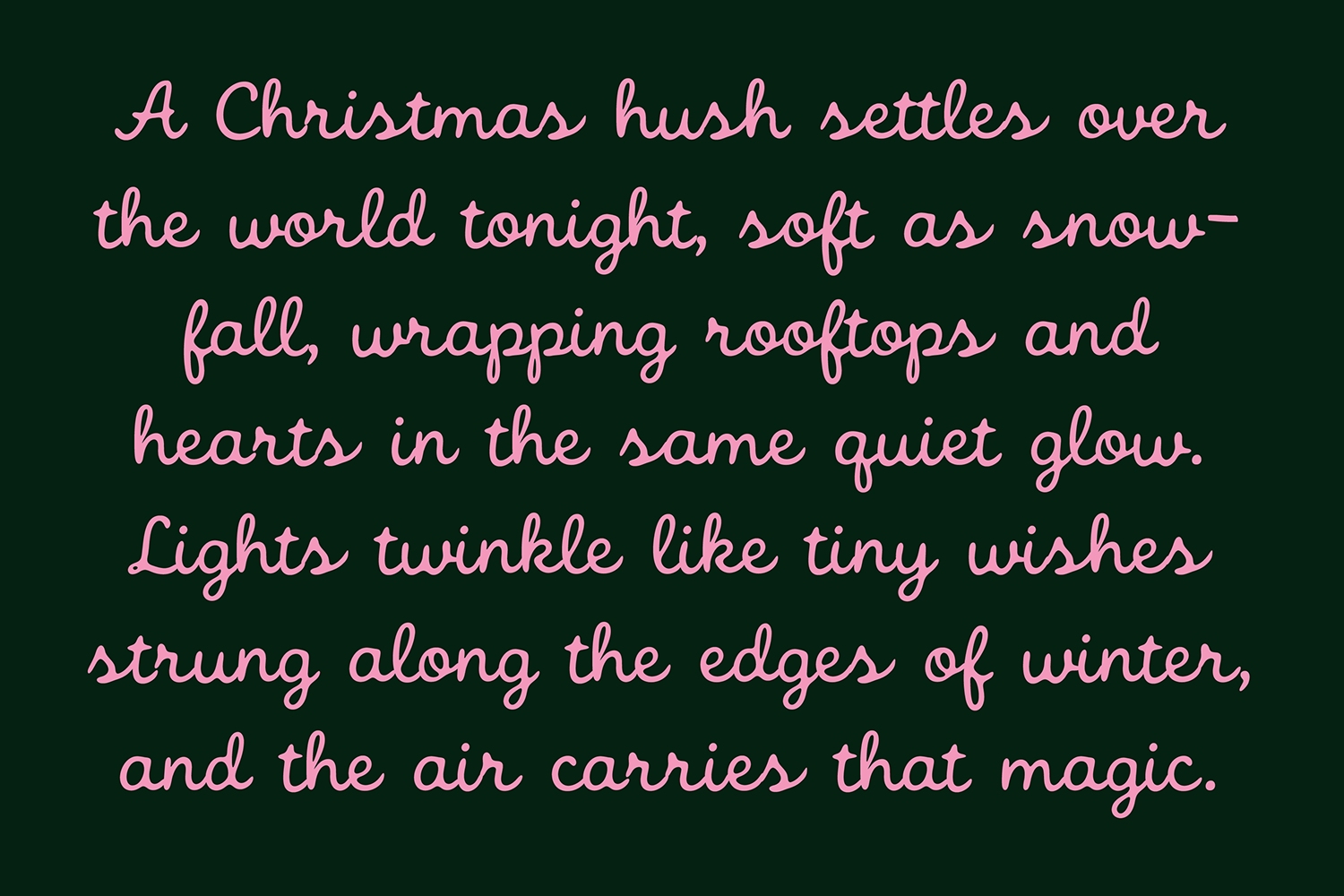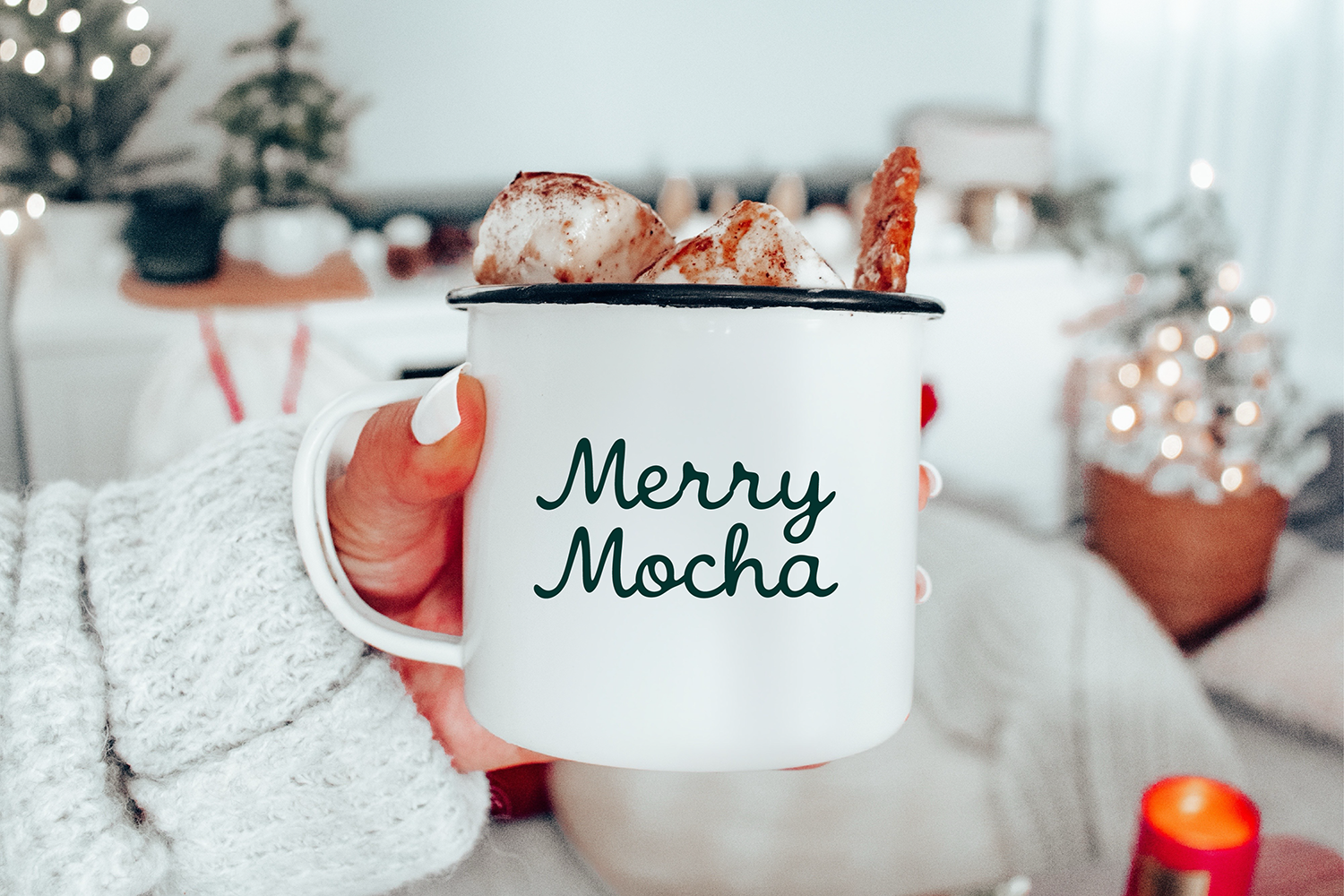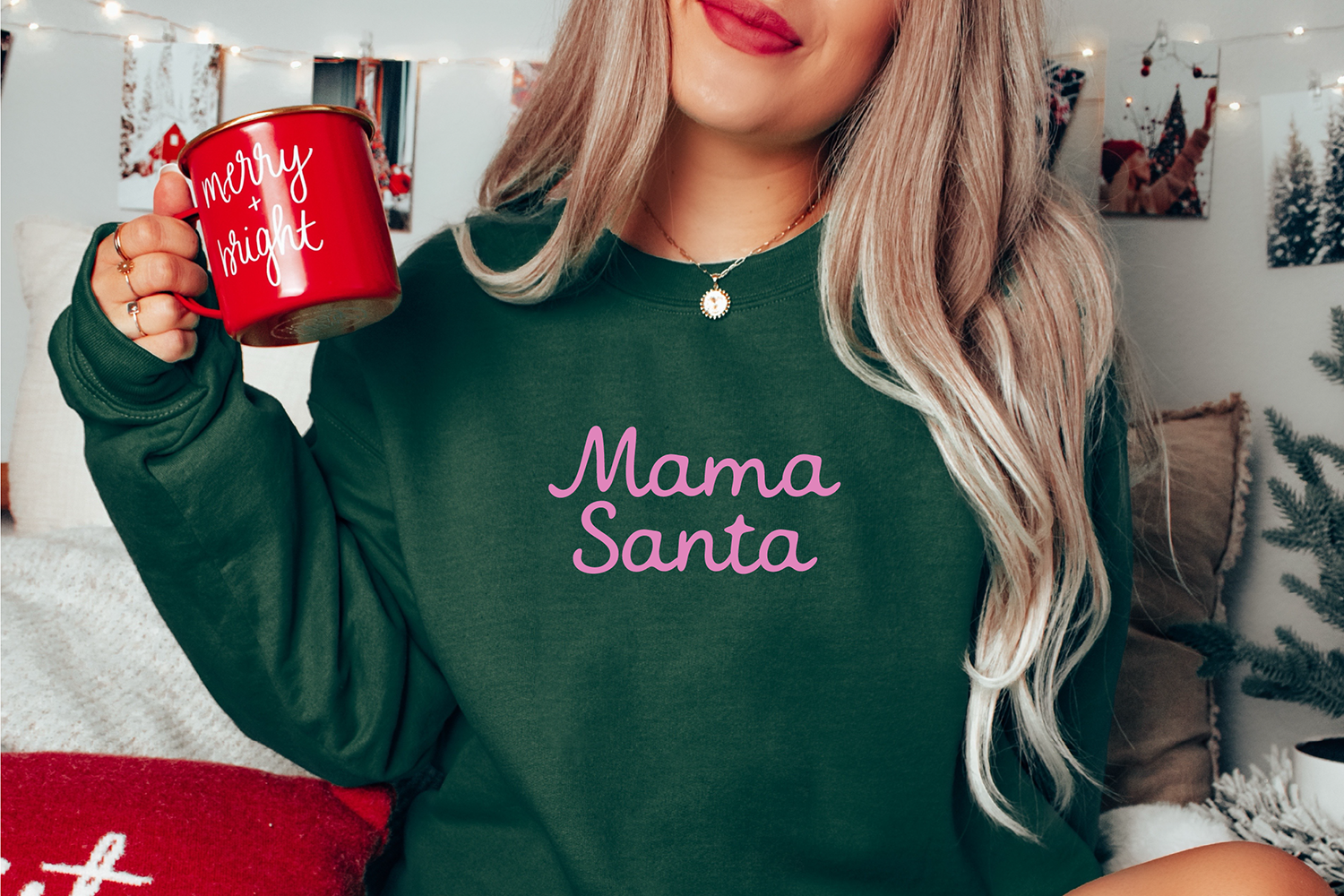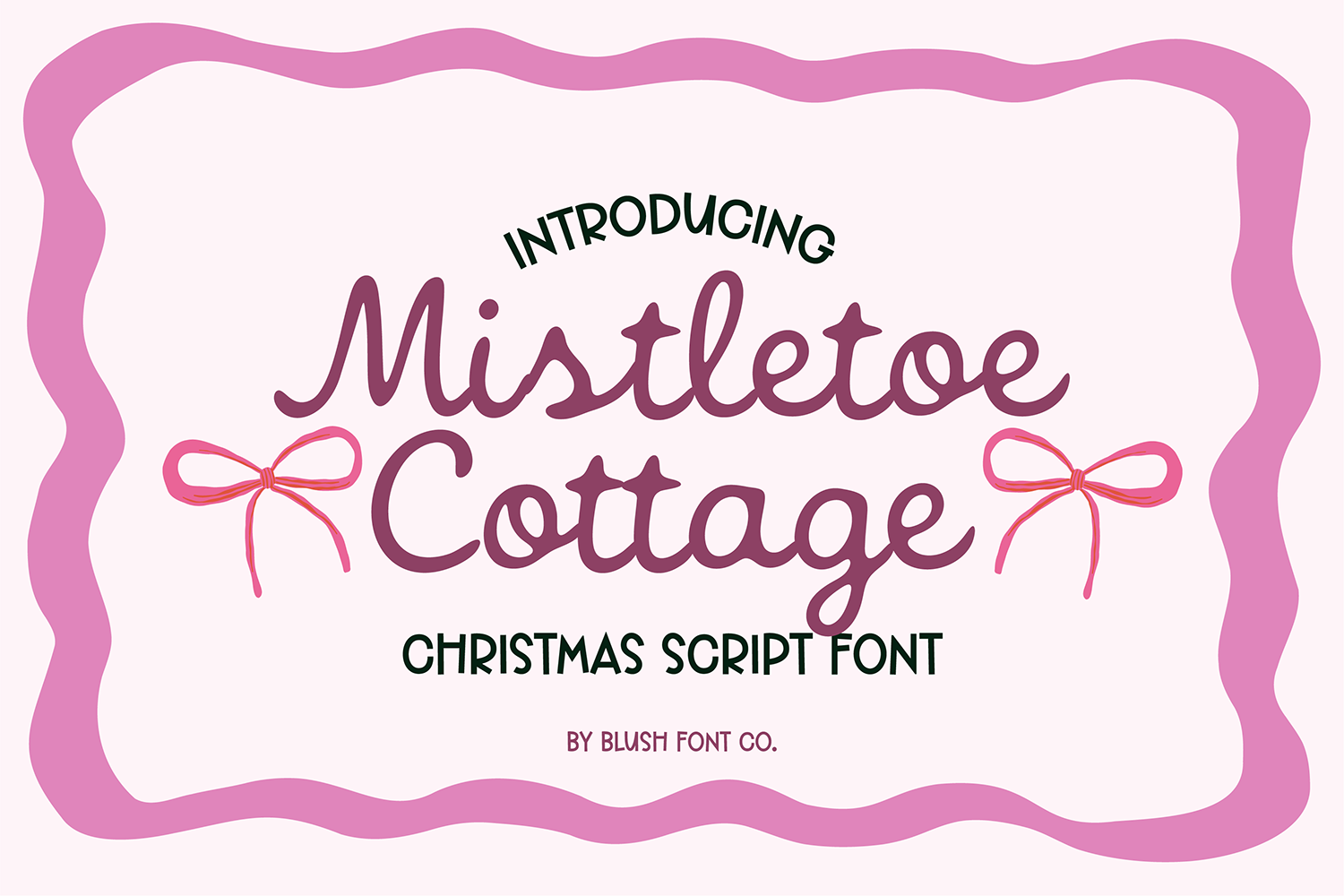
"Mistletoe Cottage" a brush winter script Christmas font
This is a vintage script font. This font is great for holiday decor, cards, and farmhouse living.